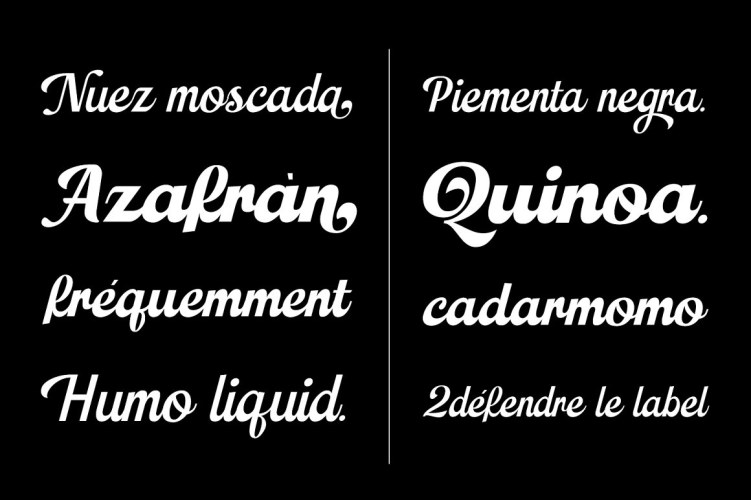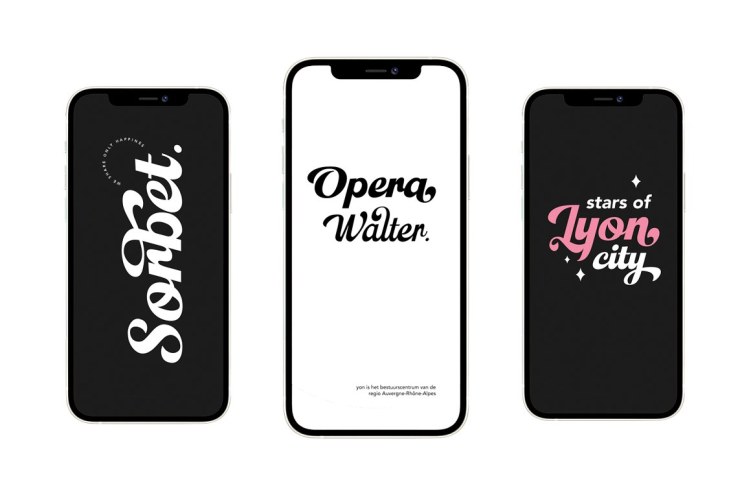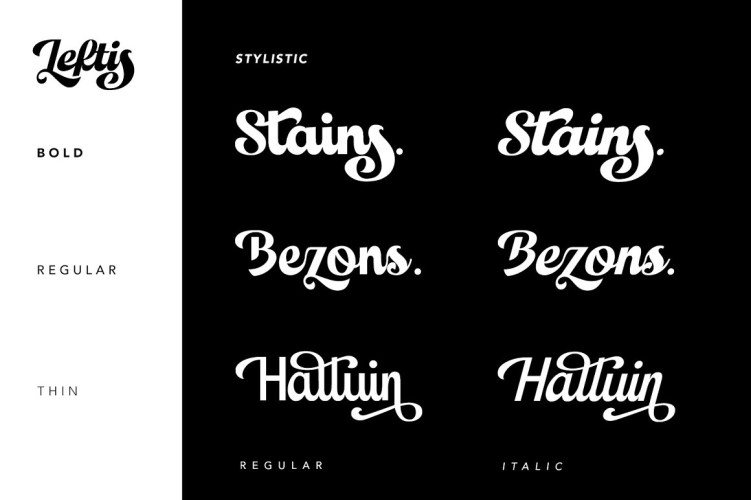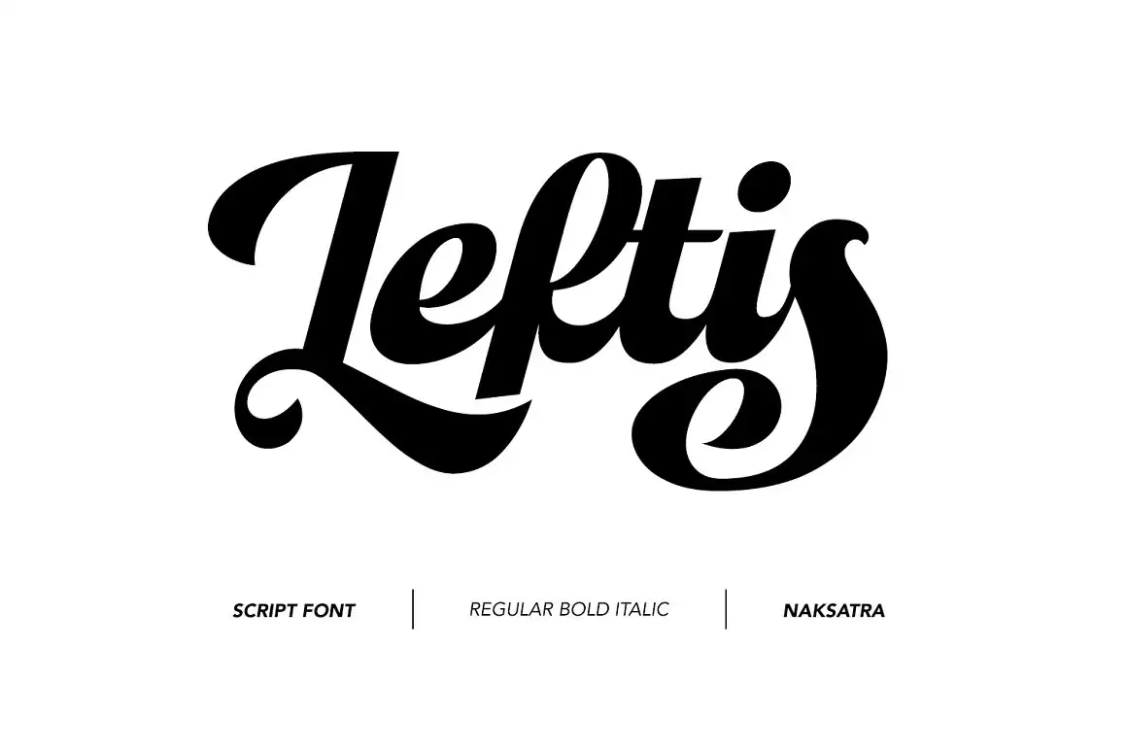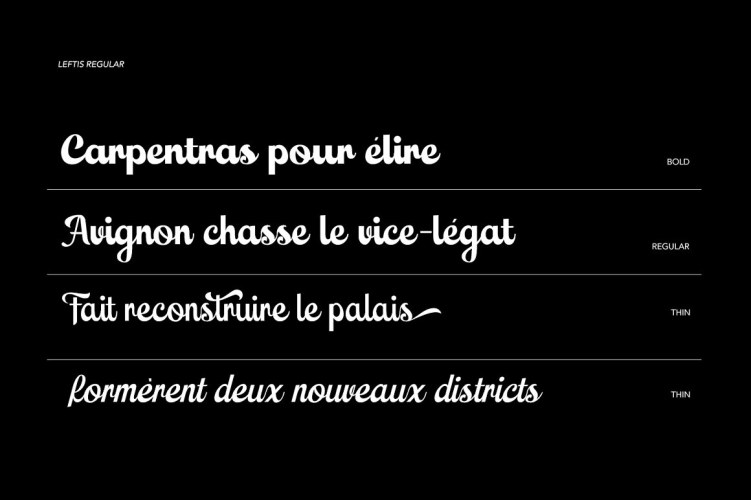
Leftis Script Font
Leftis is a script font family and offers you contrast style between thin, regular, bold and italic typeface can give a great touch to your design. This font is multilin…
Leftis is a script font family and offers you contrast style between thin, regular, bold and italic typeface can give a great touch to your design. This font is multilingual support and also includes stylistic alternate glyphs with textual ligature
Leftis family font includes 6 fonts :
leftis Thin, leftis Thin italic, leftis Regular, leftis Regular italic, leftis Bold, leftis Bold italic
Where Leftis Script Font works best
Leftis Script Font brings a personal, handwritten warmth to invitations, menus and place cards.
Craft brands — coffee, cosmetics, bakery — use scripts like Leftis Script Font for signature-style logos and labels.
Pair Leftis Script Font with a plain sans for quotes, stories and Pinterest pins that feel handmade.
What is Leftis Script Font good for?